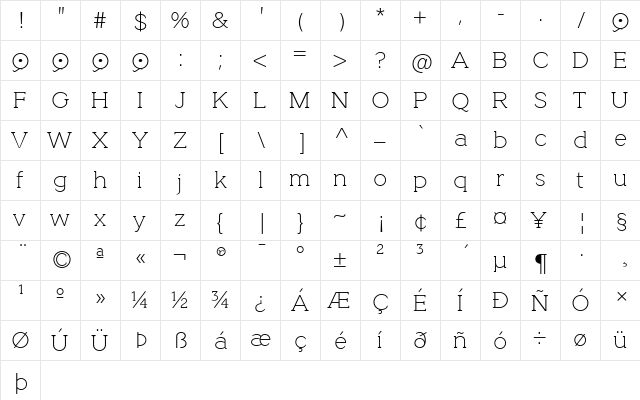
Quotus Thin
| Foundry | deFharo |
| Designer | Fernando Haro |
Design Context for Quotus Typeface
Quotus is a composed and adaptable typeface that performs quietly and consistently across a wide range of design contexts. Its slender proportions lend an understated elegance to any composition.